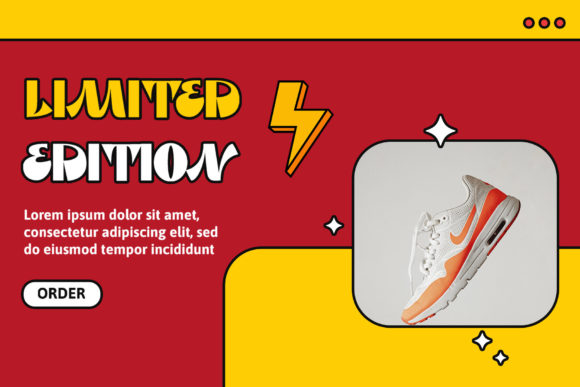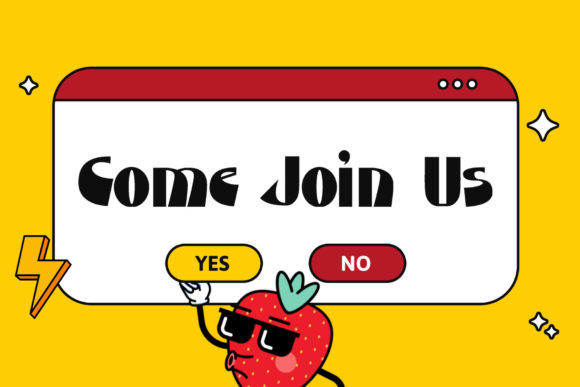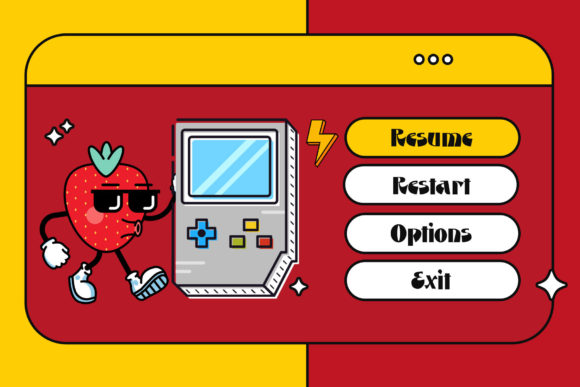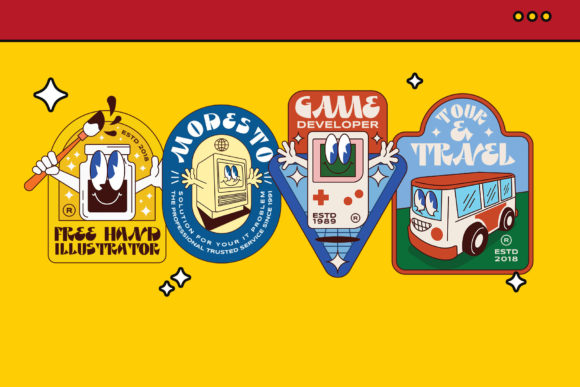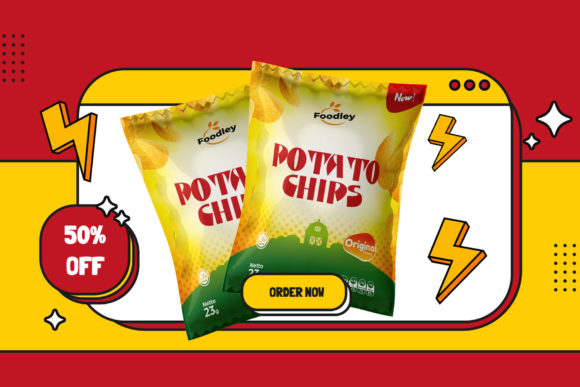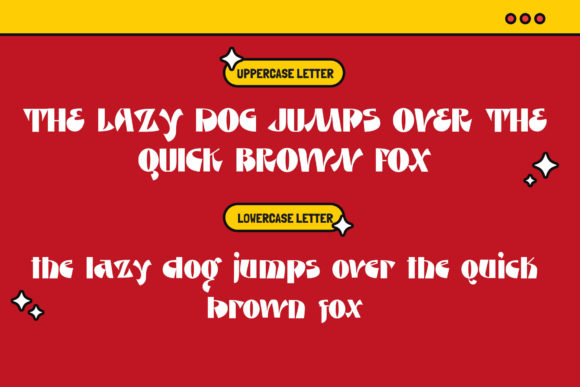
Introduction to Marlben Font Font
Fonts play a crucial role in design, and the Marlben Font font is a typeface that brings both character and versatility to any project. Whether you’re working on a branding project, a website, or a print design, the Marlben Font font offers a unique style that can elevate your work.
Marlben is a display font that has a vintage feel.
All angles of this typeface were established to look more dynamic which refers to cultural products of the 80s such as games, art, literature, fashion, dance, film and music that are consumed by most of the population .
Key Features of Marlben Font Font
Why Choose Marlben Font Font?
The Marlben Font font is more than just a typeface – it’s a design tool that helps you communicate your message with style and clarity. Its unique character set and versatile design make it suitable for a wide range of applications, from elegant invitations to bold headlines.
With its carefully crafted letterforms and balanced proportions, the Marlben Font font ensures readability and visual appeal across all mediums.
What makes Marlben Font font special?
The Marlben Font font stands out with its unique design, exceptional readability, and versatility across various design applications.